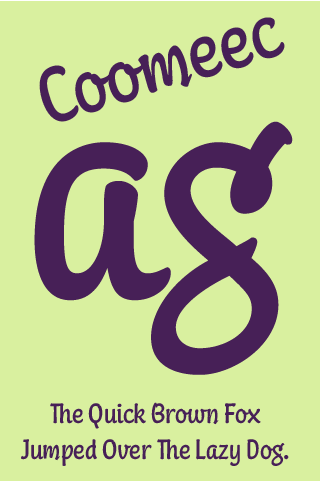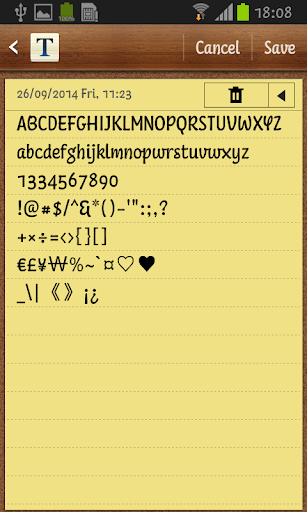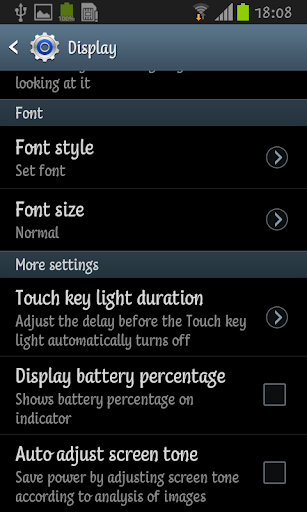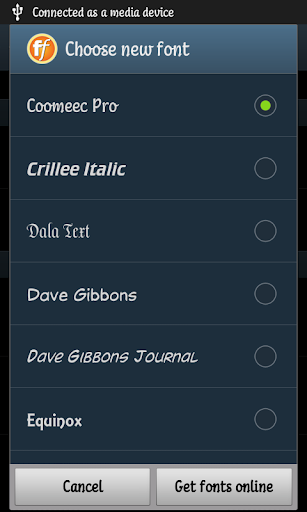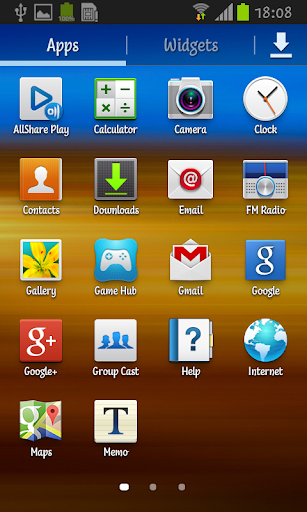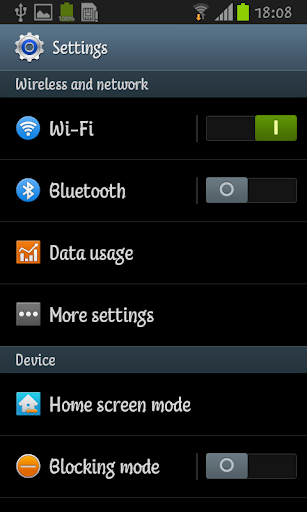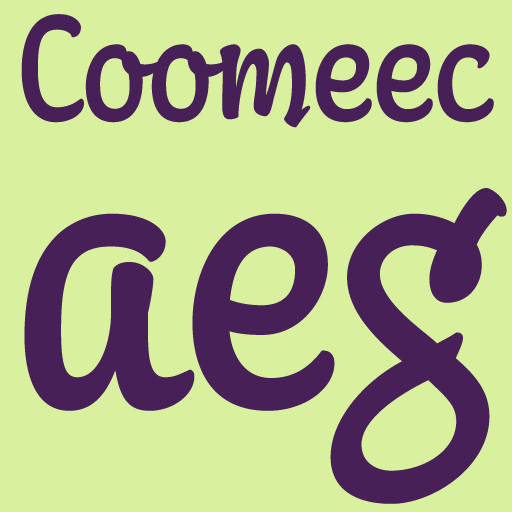
Coomeec Pro FlipFont
Coomeec™ Pro Latin Flipfont
More than just another cartoon font, Coomeec™ Pro, takes the basic forms of a brush script to a new dimension. Its many small embellishments give the design verve and character.
Pan-European character set
supports Western, Central and Eastern European languages.